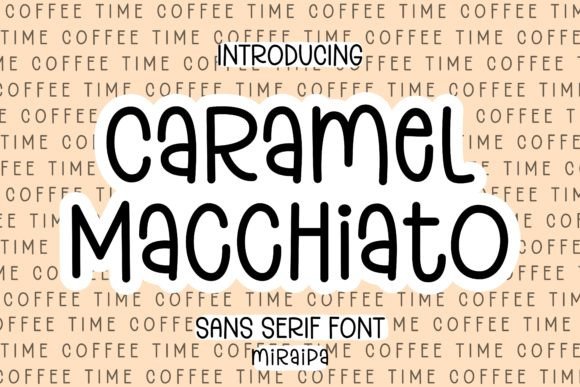
The Sweet Spot: Discovering the Charm of Caramel Macchiato Font
I’ll never forget the time I was working on a whimsical Easter-themed project for a client, and I just couldn’t find the right font to match the playful vibe I was going for. The client wanted something that was both charming and quirky, but not too over-the-top. That’s when I stumbled upon the Caramel Macchiato font, and it was love at first sight! 💕
Designed in a cute and playful sans serif font style, Caramel Macchiato is perfect for projects that need a friendly touch. Its whimsical and charming personality makes it suitable for a wide range of designs, from Easter and back to school projects to wedding and party decorations, invitations, posters, blogs, clothing, child-related designs, greeting cards, and social media posts.
- ✨ Unique and playful design that’s sure to grab attention
- 🎉 Extensive character set, including OpenType features and glyphs
- ⚠️ Some users may find the font a bit too playful for formal designs
- 🤔 Limited availability of certain special characters
The Story Behind Caramel Macchiato
Caramel Macchiato was designed with the intention of creating a font that’s both playful and charming. The designer wanted to capture the whimsical feel of a coffee shop on a busy morning, with the aroma of freshly brewed coffee and the sound of lively chatter. The result is a font that’s perfect for designs that need a friendly and approachable touch.
Q: What type of designs is Caramel Macchiato best suited for?
A: Caramel Macchiato is suitable for a wide range of designs, including Easter and back to school projects, wedding and party decorations, invitations, posters, blogs, clothing, child-related designs, greeting cards, and social media posts.
Q: Does Caramel Macchiato have OpenType features and glyphs?
A: Yes, Caramel Macchiato has an extensive character set, including OpenType features and glyphs. You can access these features in compatible design software to add a personal touch to your designs.